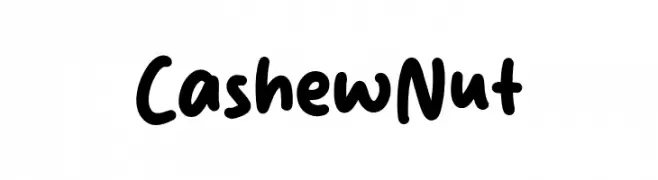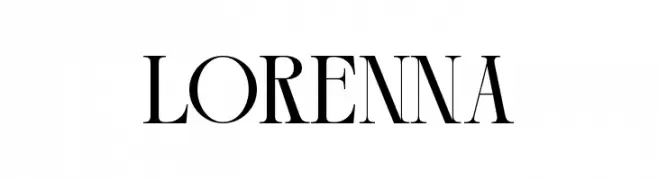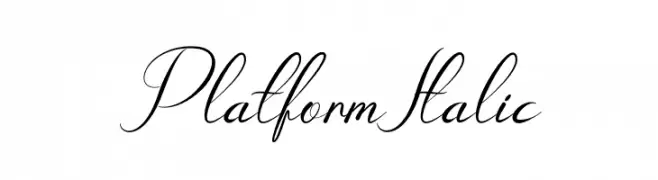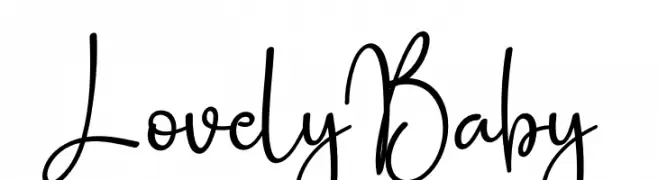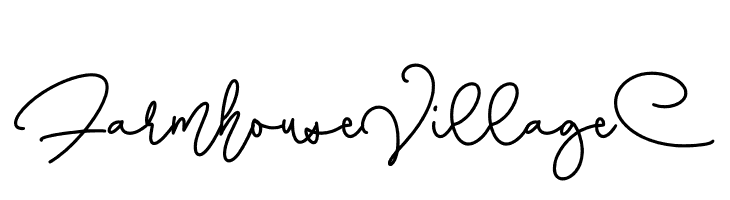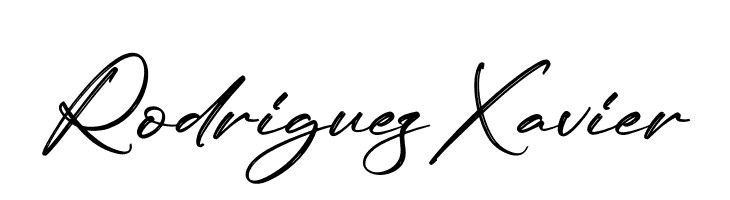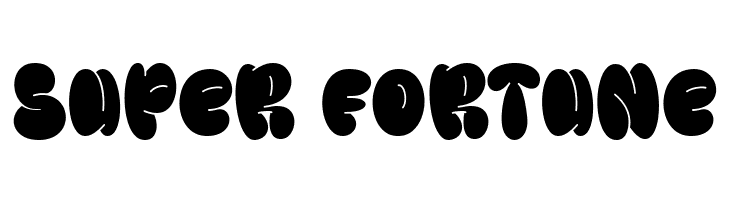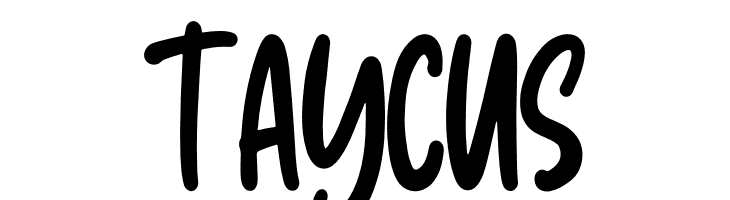
A playful, handwritten font with smooth, flowing lines and a casual style.
A playful and whimsical script font with flowing, interconnected letters.
A playful, handwritten-style font with bold, rounded characters.
A playful, hand-drawn font with bold, rounded characters.
A casual, handwritten script font with a friendly and flowing style.
A playful, handwritten font with tall, narrow letters and a slight slant.
A classic serif font with high contrast and elegant, thin lines.
An elegant, cursive font with flowing, ornate letters and a handwritten style.
A stylish and fluid script font with elegant, flowing strokes.
A playful, whimsical handwritten font with flowing, interconnected letterforms.